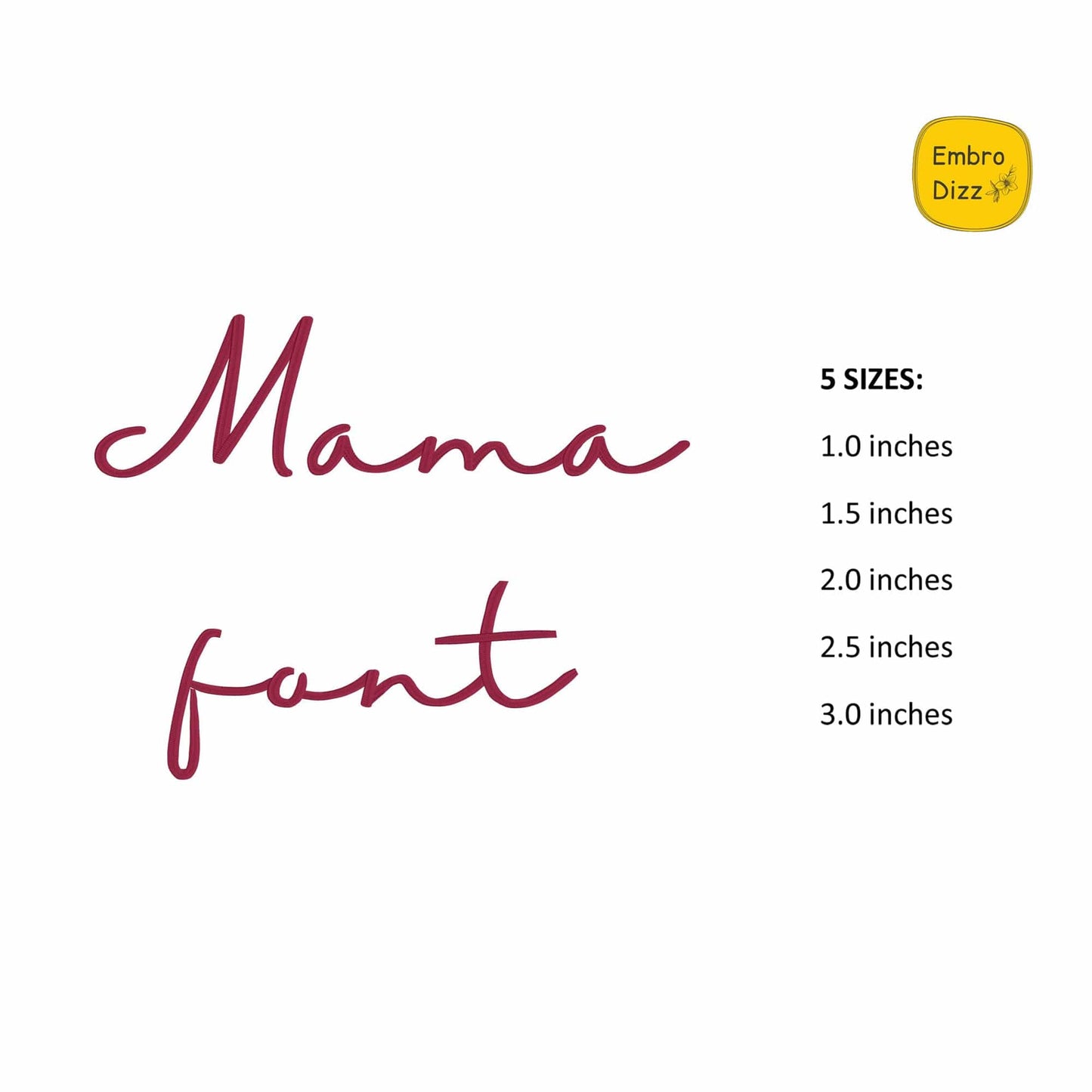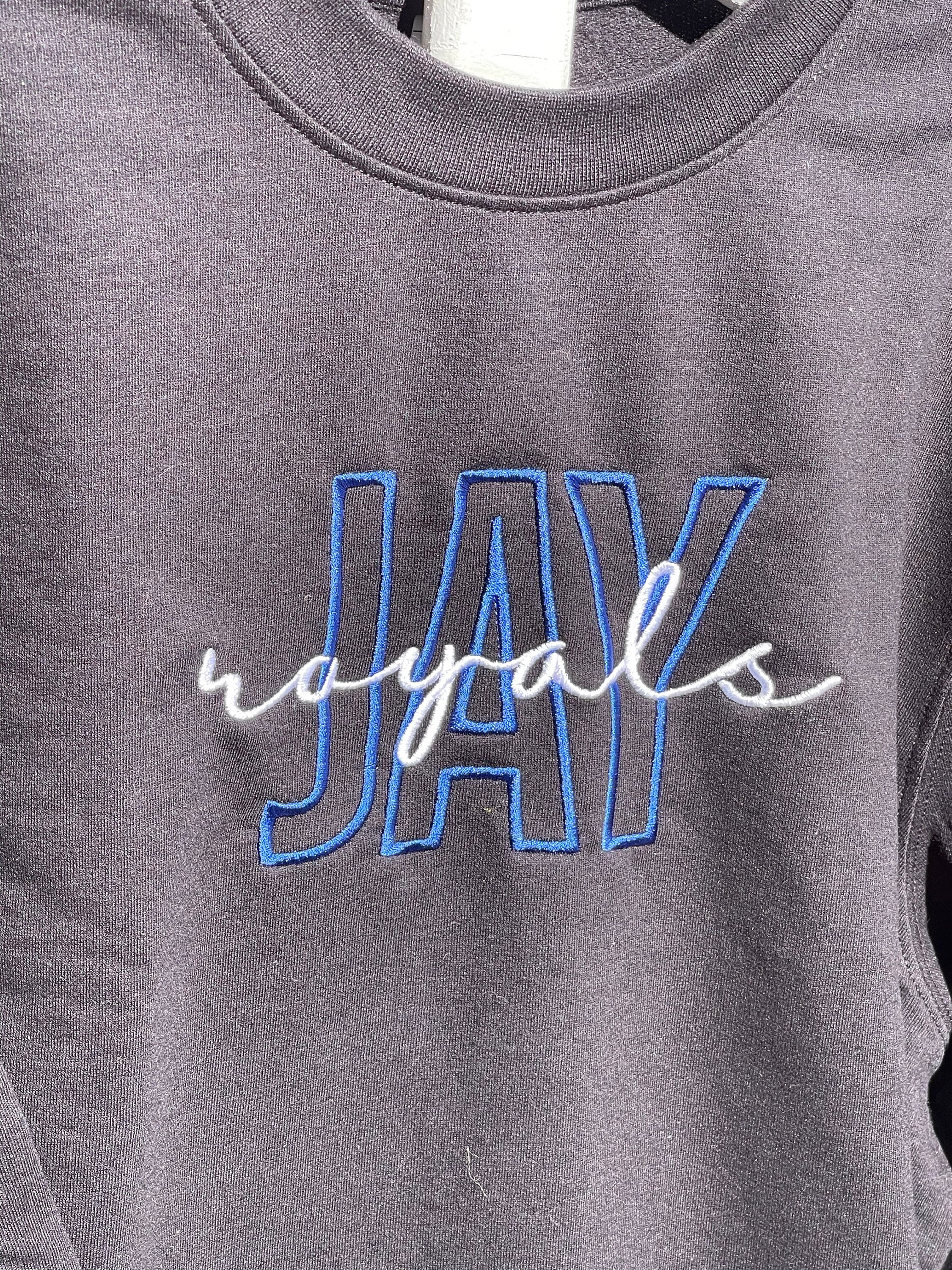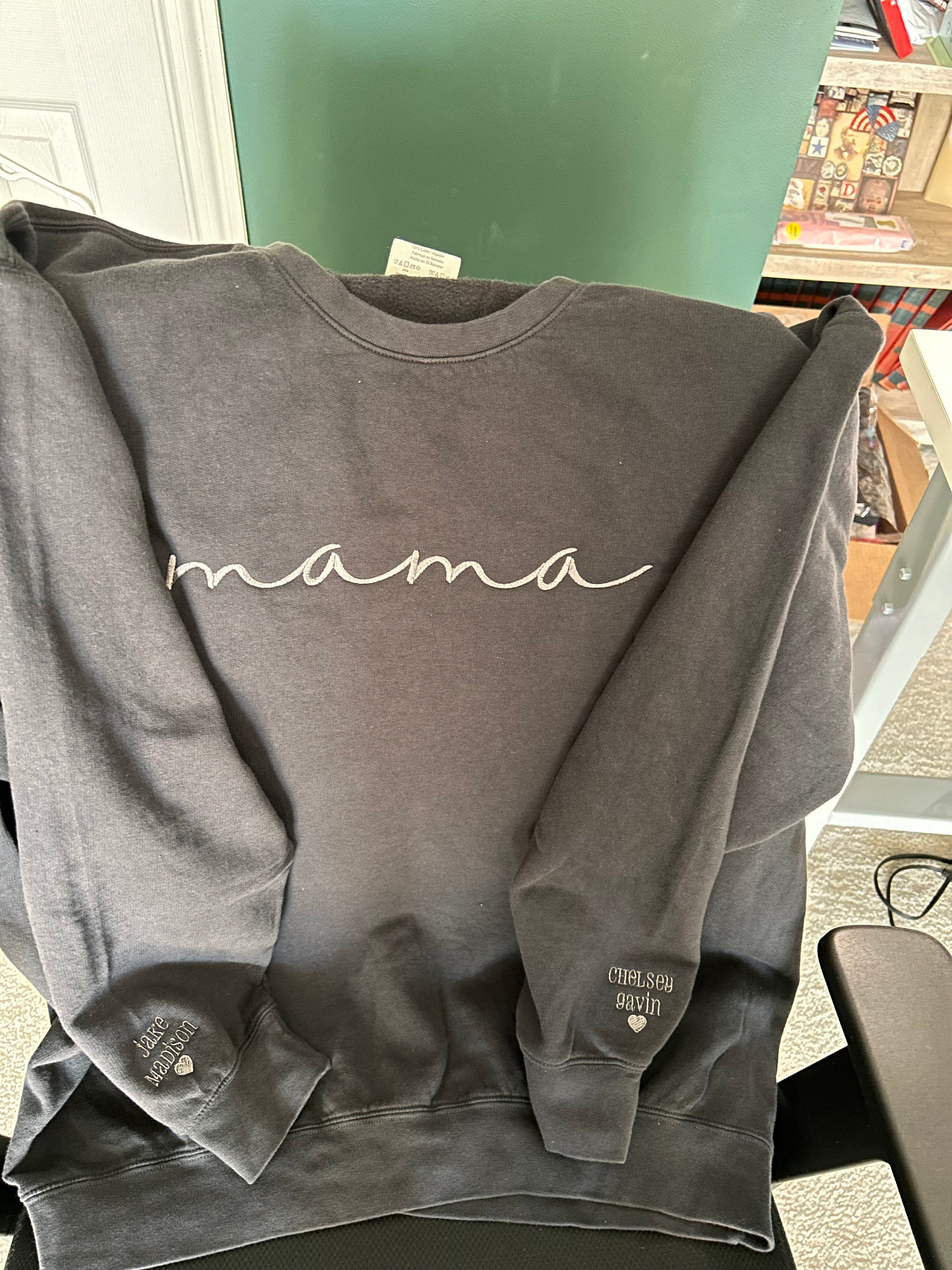
Mama - Embroidery font
• Included: A-Z (uppercase), a-z (lowercase), 0-9 (numbers)
Mama is a script machine embroidery font with soft, flowing letters. It is a lovely choice for moms and home embroiderers making mama shirts, family sweatshirts, tote bags, towels, and keepsake gifts for Mother’s Day, birthdays, and new baby gifts.
For small embroidery shops, this BX embroidery font is a practical choice for custom family names and meaningful words. It comes in five sizes from 1 to 3 inches, so you can choose the size that fits your project.